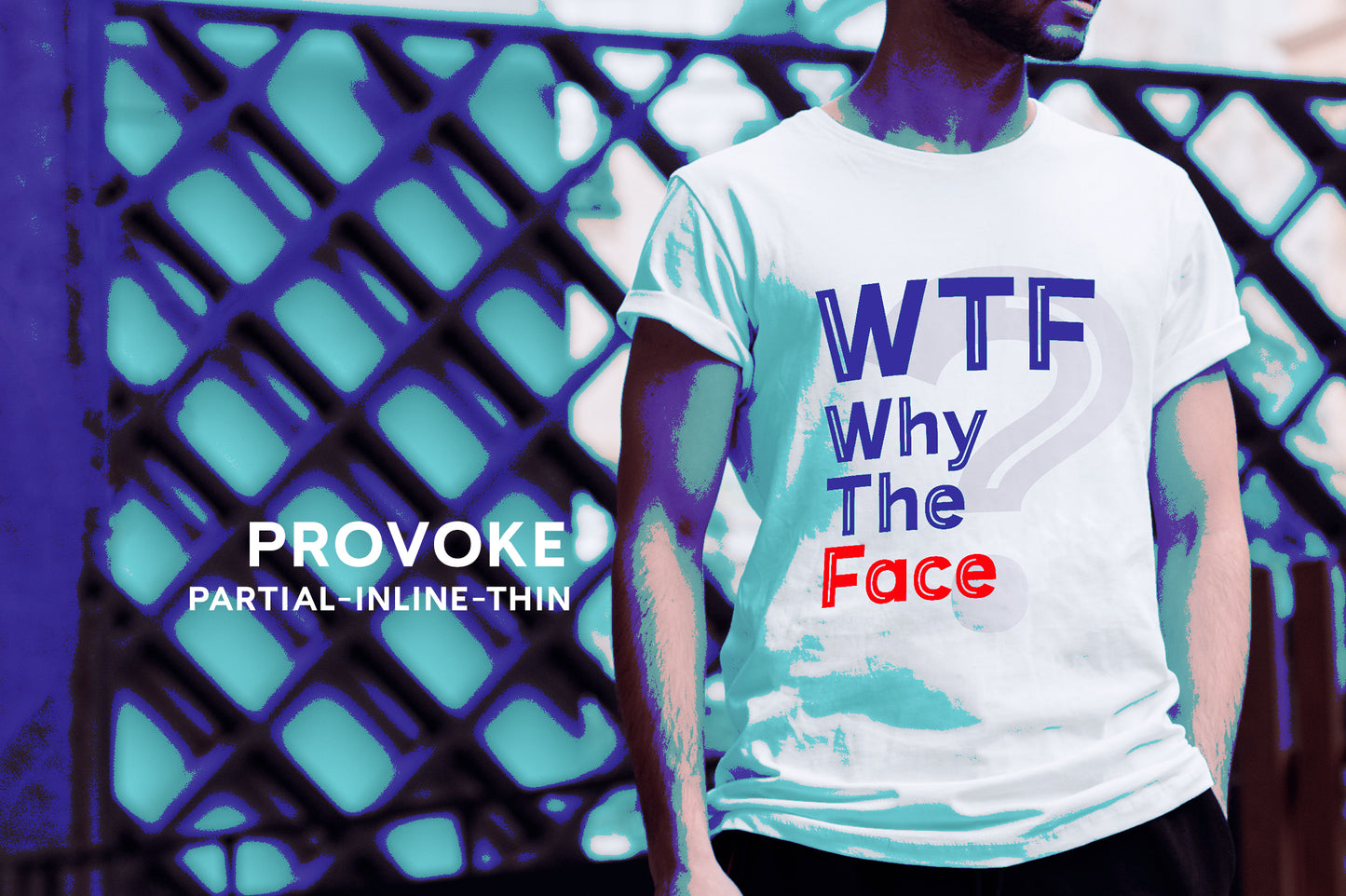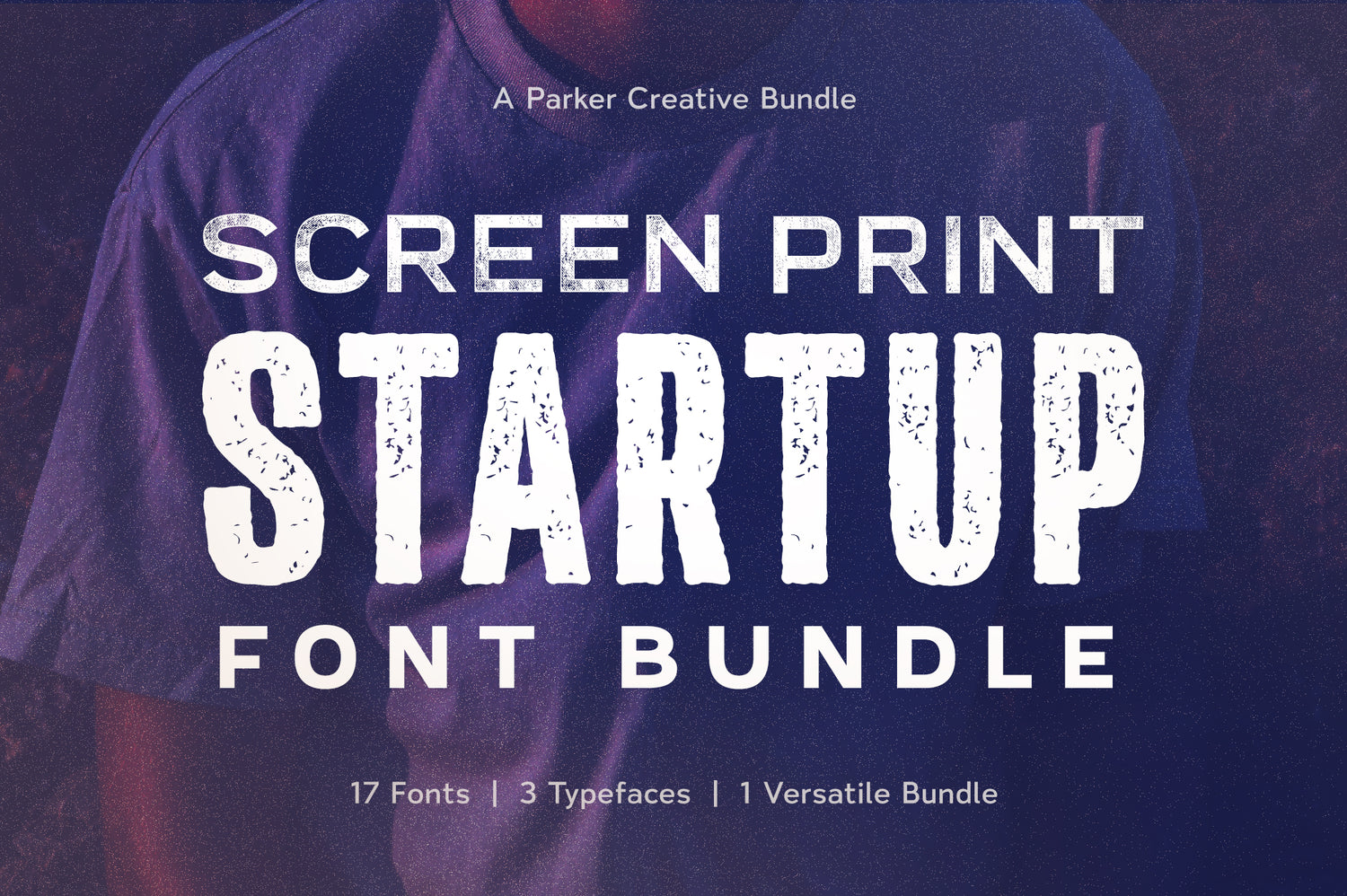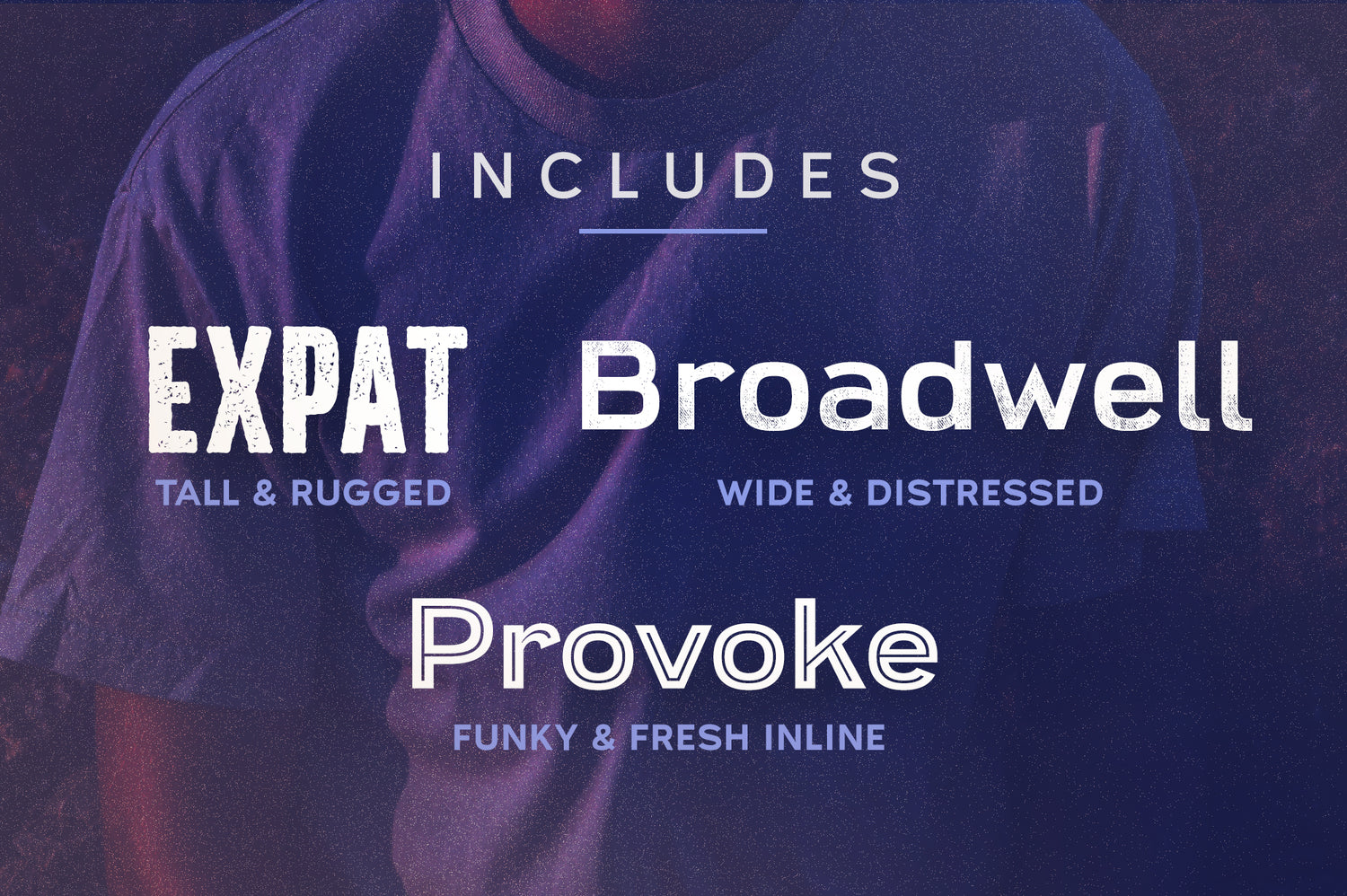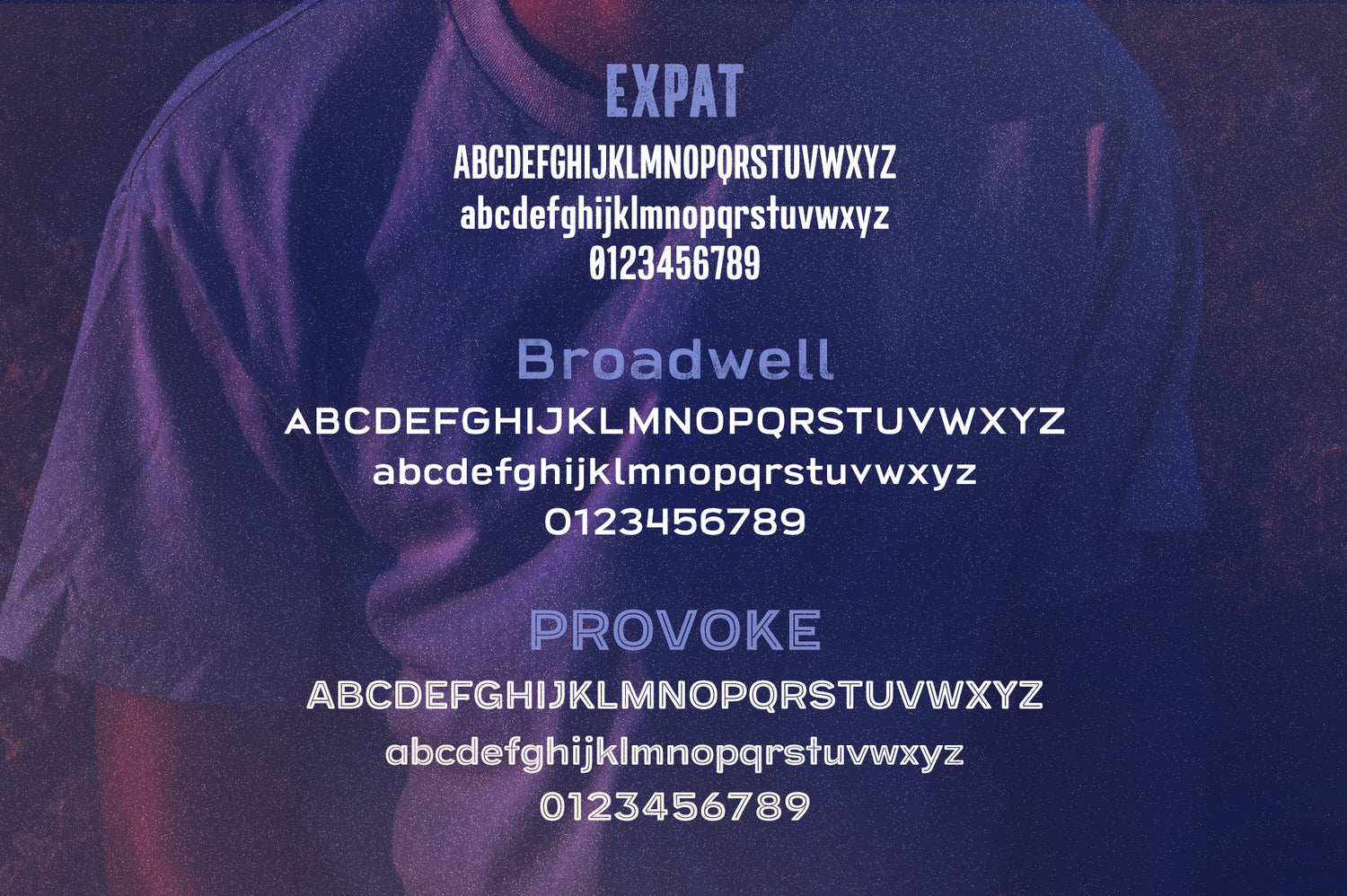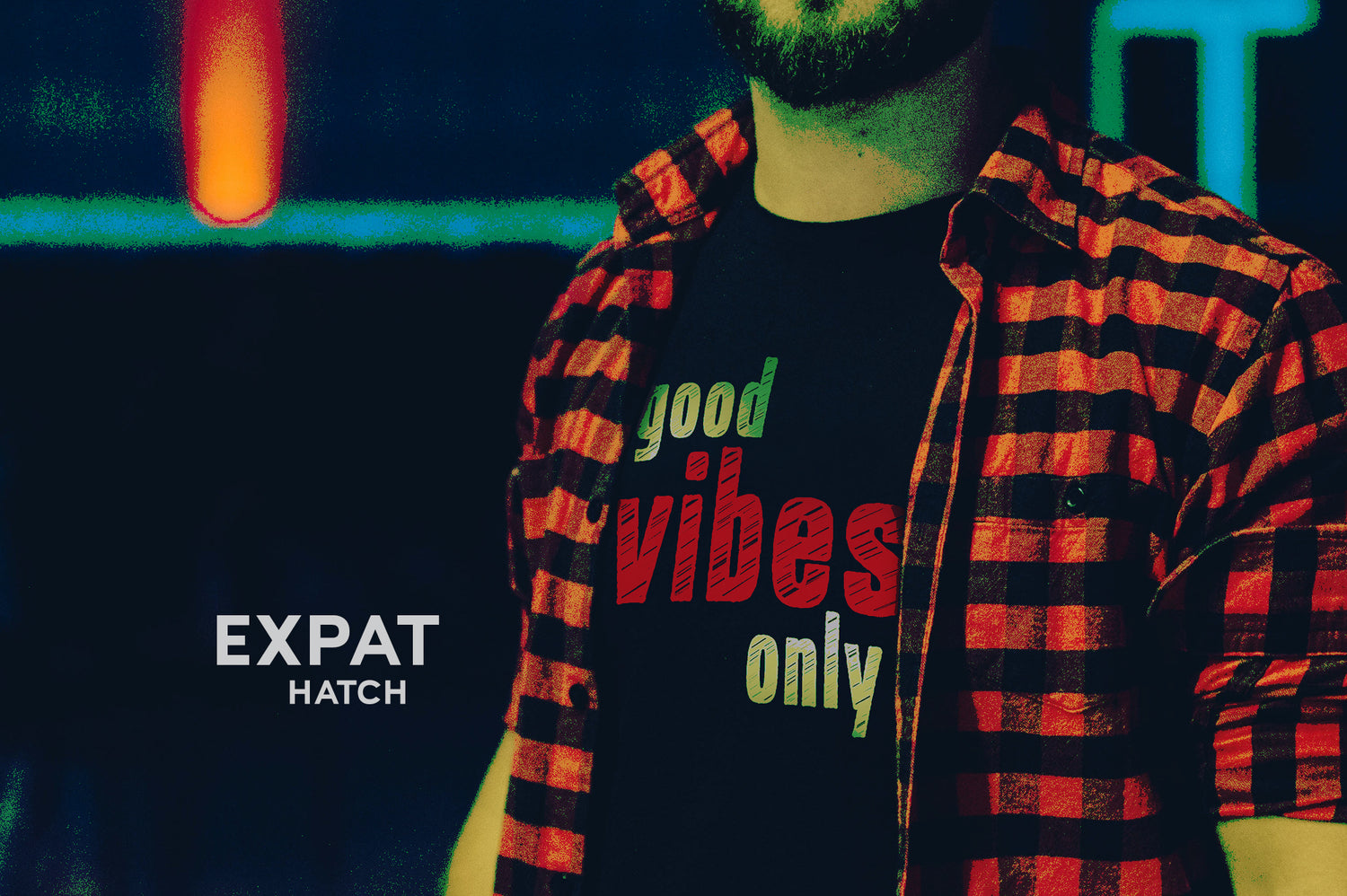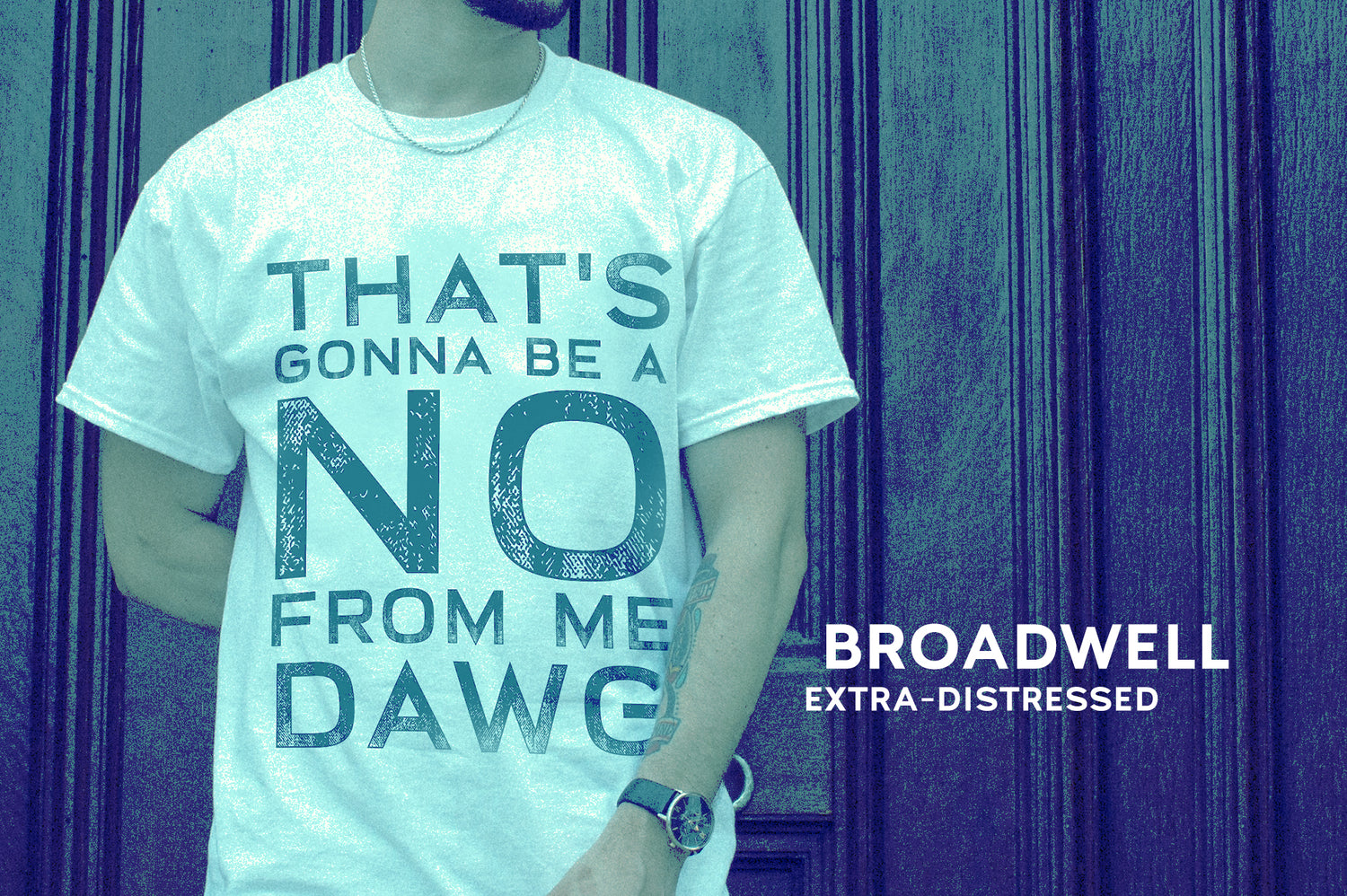
Screen Print Startup Font Bundle
Create original and unpolished new t-shirt designs with distressed, rugged, and funky typefaces in the Screen Print Startup Fonts Bundle! Get creative and establish a unique sense of style in your t-shirt designs with these strong and totally unique display fonts.
Broadwell: Create a strong presence with a distressed font featuring clean lines and curves, balanced visual weight, and striking sharp edges all in a wide body. Broadwell works well to draw attention in titles, headlines, and large text with it's aggressive horizontal expanse (consider an all-caps title for even more command).
Expat: Breathe life into your headings with this handcrafted, rugged design. It's tall and narrow characters create a big impression while randomized distressing and imperfect edges create a truly off-road aesthetic. Expat comes with 4 style variations including *Standard*, *Rough*, *Distressed*, and *Hatch*.
Provoke: This typeface is boldly rooted in modern urban culture and can create two incredibly distinct visual styles based on the specific font that is utilized. In all, Provoke comes in 10 font variations for a great amount of versatility for your project. Whether you're looking for modern chic, or streetlamp funk, this typeface has you covered.